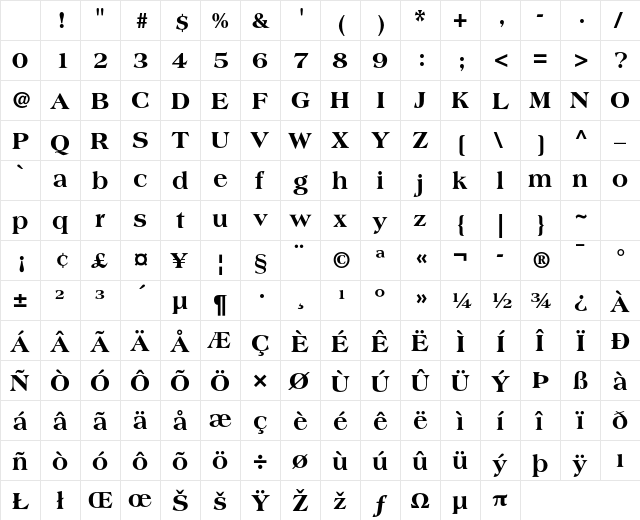
Americana Std Extra Bold
Style: Extra Bold
Designer: Richard Isbell
Complete Americana Std Extra Bold glyph index. Displaying only characters natively supported by Americana Std Extra Bold font.
Design Context for Americana Std
Americana Std is a composed and adaptable typeface that performs quietly and consistently across a wide range of design contexts. Its bold stroke weight gives it real presence on the page.